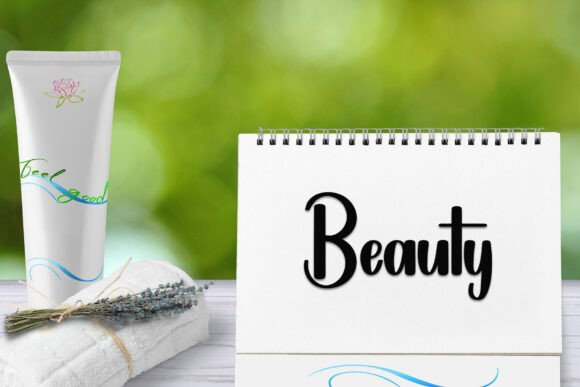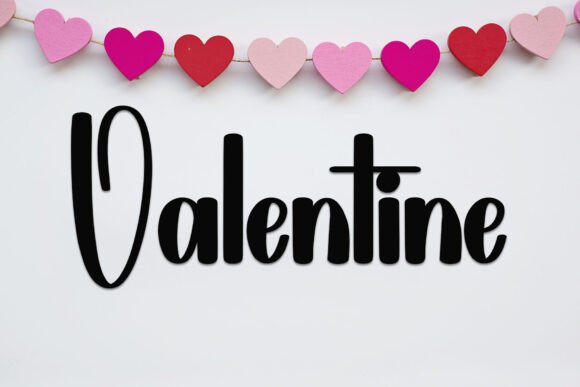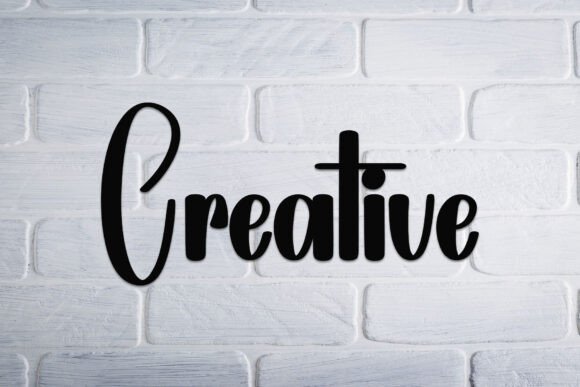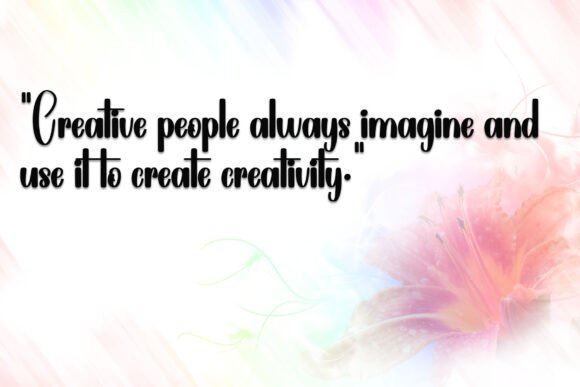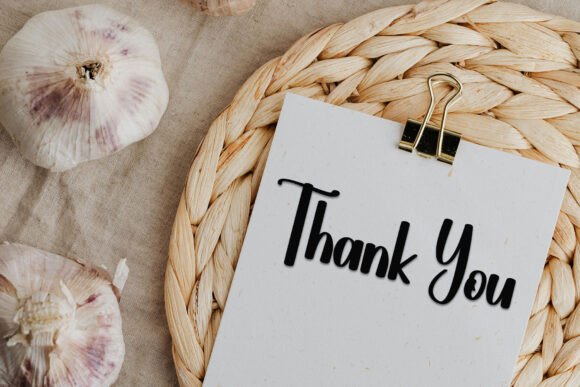
Dreaming Font: The Simple Handwritten Font for Your Creative Projects
Are you looking for a font that can add a personal touch to your designs? Look no further than the Dreaming Font! This beautiful, simple handwritten font is perfect for a wide range of applications, from greeting cards to headlines, and is sure to bring a natural and effortless feel to your next project.
What is Dreaming Font?
Dreaming Font is a carefully crafted, handwritten font that exudes simplicity and elegance. Its unique, cursive style is reminiscent of handwritten notes and letters, making it perfect for designs that require a personal touch. The font is highly versatile, and its simplicity makes it easy to pair with other fonts and design elements.
Key Features of Dreaming Font
• Simple and Handwritten: Dreaming Font is a beautifully crafted, handwritten font that adds a personal touch to any design.
• Versatile: With its simple and elegant style, Dreaming Font can be used for a wide range of applications, from greeting cards to headlines, and even social media graphics.
• Natural Feel: The font’s handwritten style gives it a natural, effortless feel that’s perfect for designs that require a personal touch.
• Easy to Pair: Dreaming Font is easy to pair with other fonts and design elements, making it a great addition to any design project.
Uses of Dreaming Font
Dreaming Font is a highly versatile font that can be used for a wide range of applications, including:
• Greeting Cards: Add a personal touch to your greeting cards with Dreaming Font’s beautiful, handwritten style.
• Headlines: Use Dreaming Font to create eye-catching headlines that are sure to grab attention.
• Social Media Graphics: Add a personal touch to your social media graphics with Dreaming Font’s simple and elegant style.
• Invitations: Use Dreaming Font to create beautiful, handwritten-style invitations for weddings, parties, and other special events.
• Branding: Use Dreaming Font as part of your brand identity to add a personal touch to your logo, website, and marketing materials.
Why Choose Dreaming Font?
There are many fonts available that can add a personal touch to your designs, but Dreaming Font stands out for its simplicity, elegance, and versatility. Here are just a few reasons why you should choose Dreaming Font for your next project:
• Unique Style: Dreaming Font has a unique, handwritten style that’s sure to set your designs apart from the rest.
• Easy to Read: The font is highly legible, making it perfect for designs that require a clear and easy-to-read font.
• Highly Versatile: Dreaming Font can be used for a wide range of applications, from greeting cards to headlines, and even social media graphics.
• Time-Saving: With Dreaming Font, you can create beautiful, handwritten-style designs in a fraction of the time it would take to create them by hand.
Tips for Using Dreaming Font
Here are a few tips for getting the most out of Dreaming Font:
• Pair with Other Fonts: Experiment with pairing Dreaming Font with other fonts and design elements to create unique and eye-catching designs.
• Use for Headlines: Use Dreaming Font to create eye-catching headlines that are sure to grab attention.
• Add Texture: Experiment with adding texture to your designs to give them a more natural, handmade feel.
• Experiment with Colors: Try out different colors and color combinations to find the perfect look for your design.
Dreaming Font is a beautiful, simple handwritten font that’s perfect for designers and crafters looking to add a personal touch to their designs. With its unique style, versatility, and ease of use, Dreaming Font is sure to become a go-to font for a wide range of applications. Whether you’re creating greeting cards, headlines, or social media graphics, Dreaming Font is the perfect choice for adding a natural and effortless feel to your designs.